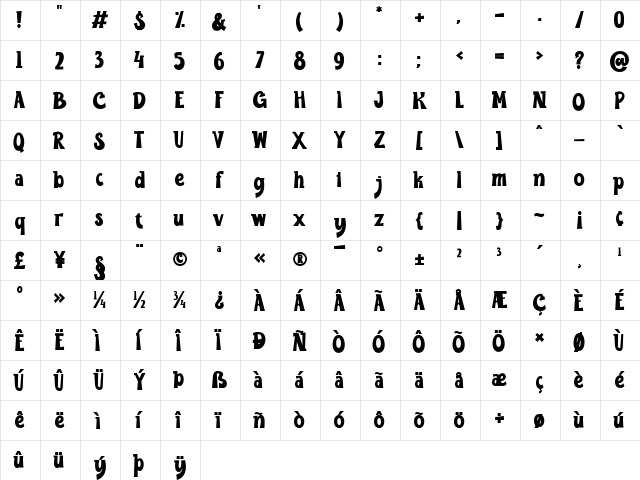
LD Funbites Regular
Design Context for LD Funbites Typeface
LD Funbites has an approachable, lighthearted character — its loose, expressive forms are well-suited to children's content, casual branding, and fun-first design.
Font Pairing: Pairs well with a rounded or humanist sans for body copy, maintaining the friendly tone without relying on LD Funbites to carry extended reading.
Pro Tip: Use LD Funbites at larger display sizes where its expressive character can land. Pair with a clean, simple sans for body copy to maintain readability.